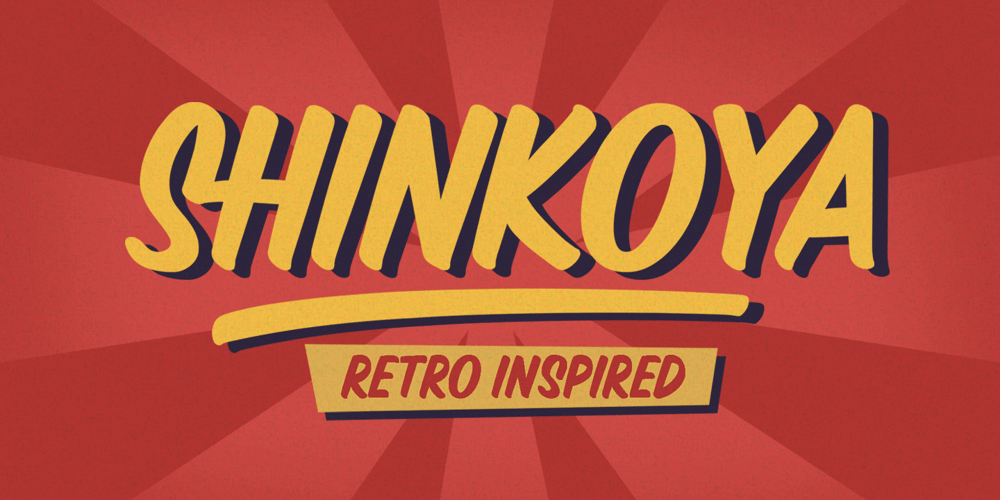
Shinkoya Font Family was designed by Ahmad Ramzi Fahruddin and published by Arterfak Project. Shinkoya contains 1 styles and family package options. Shinkoya is a vintage font inspired by retro signage, carefully designed with ‘one stroke brush’ in all-caps letterforms, highly recommended for display. Shinkoya is a versatile font that you can use for many categories such as automotive, urban, sport, food, fashion, drinks, and more.Shinkoya has smooth round forms and natural touch that suitable for logo, apparel, logotype, retro poster, labels, signage, menu design, books, and much more! Equipped with OpenType features that you can mix and match to gives your design more playfully!